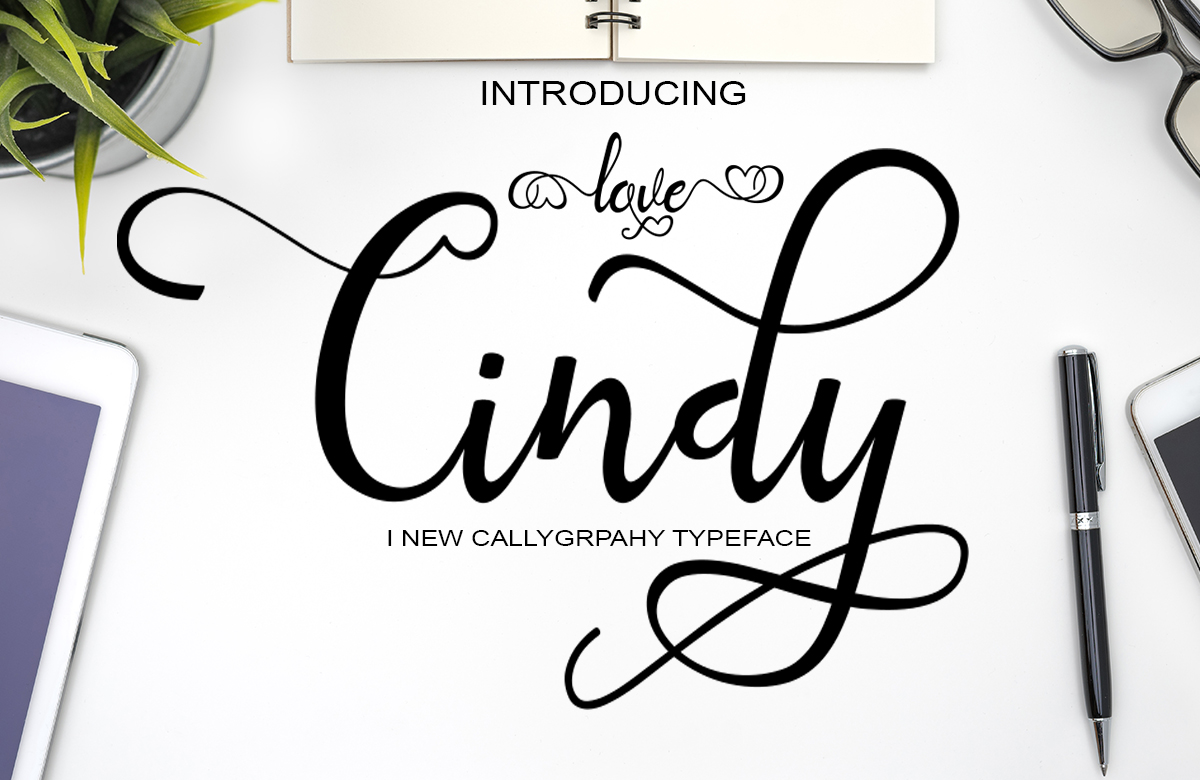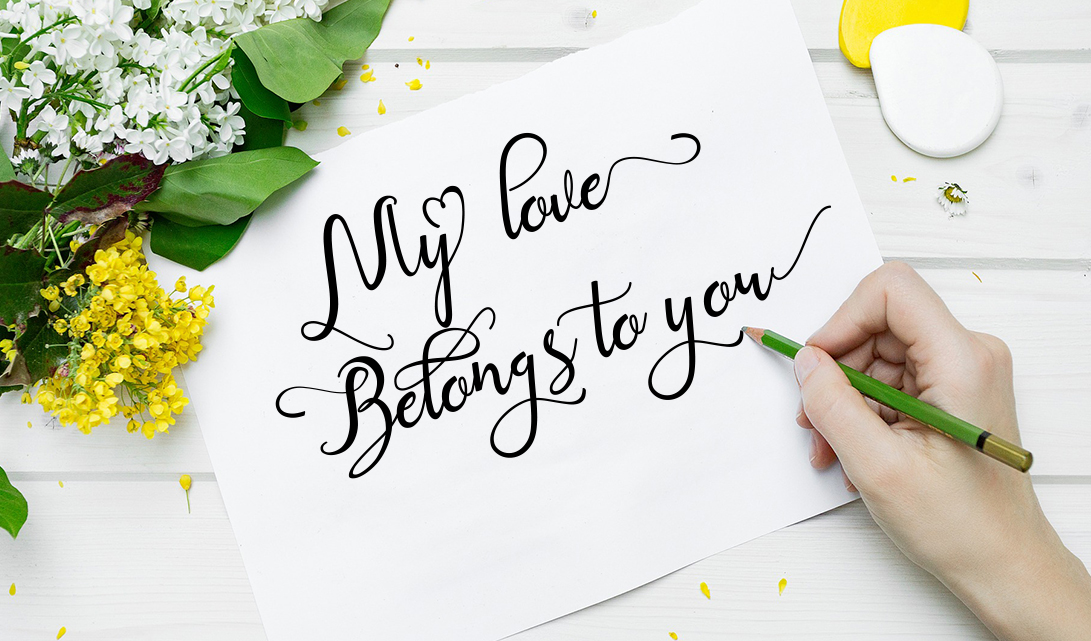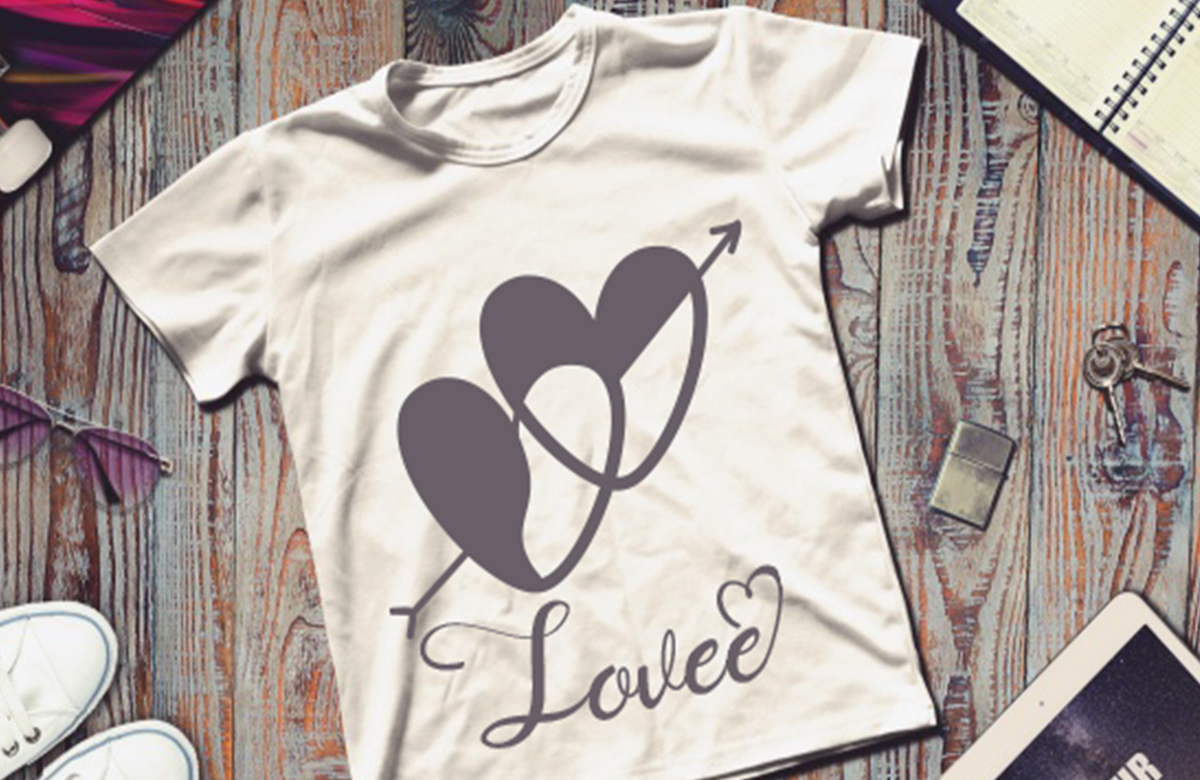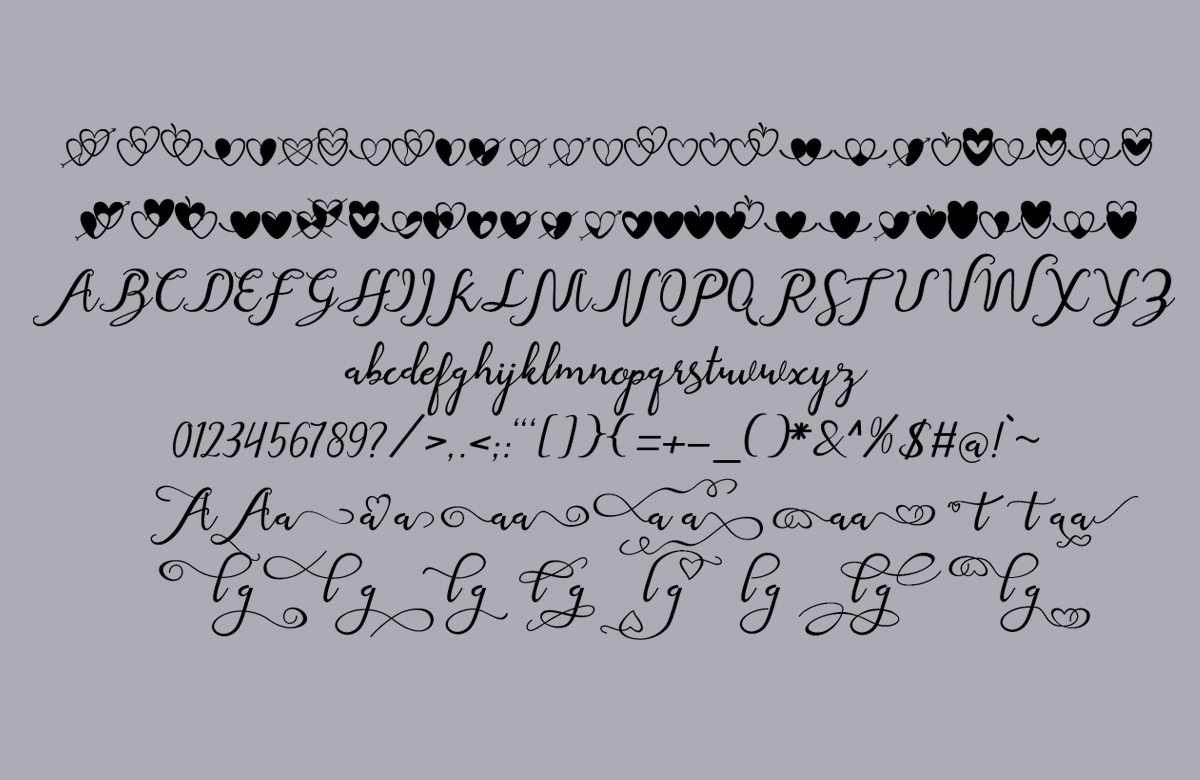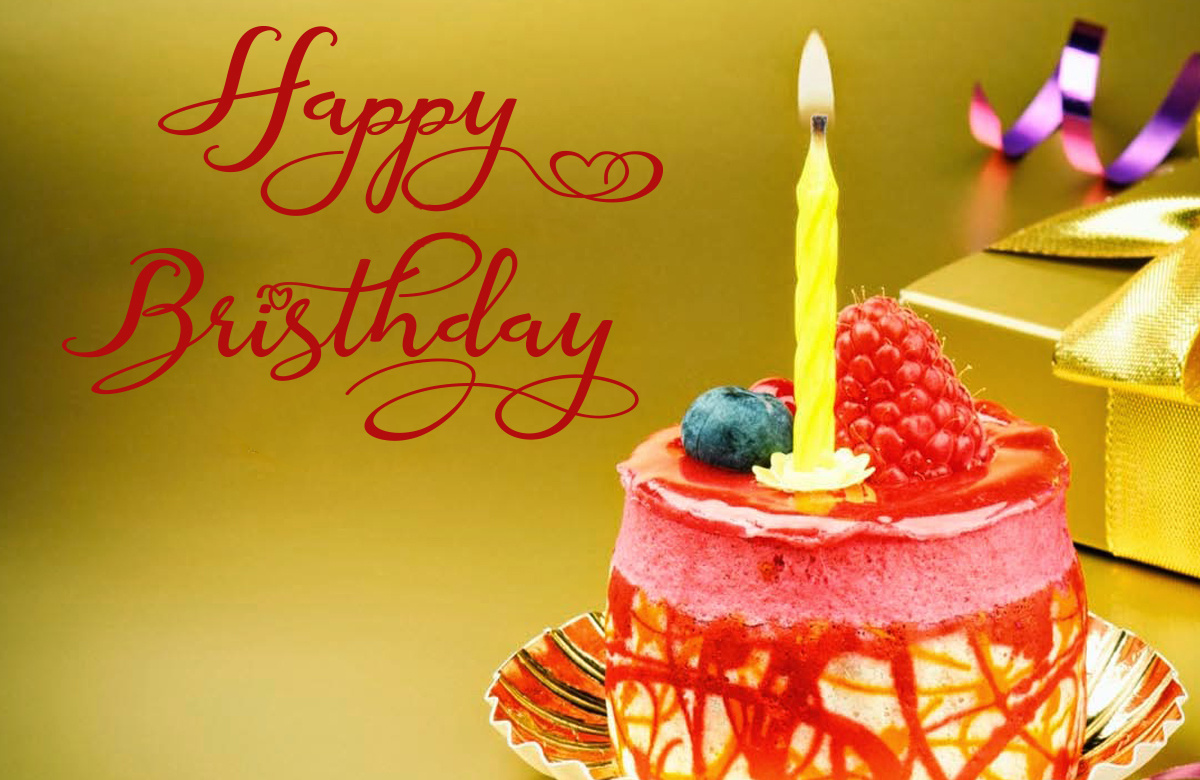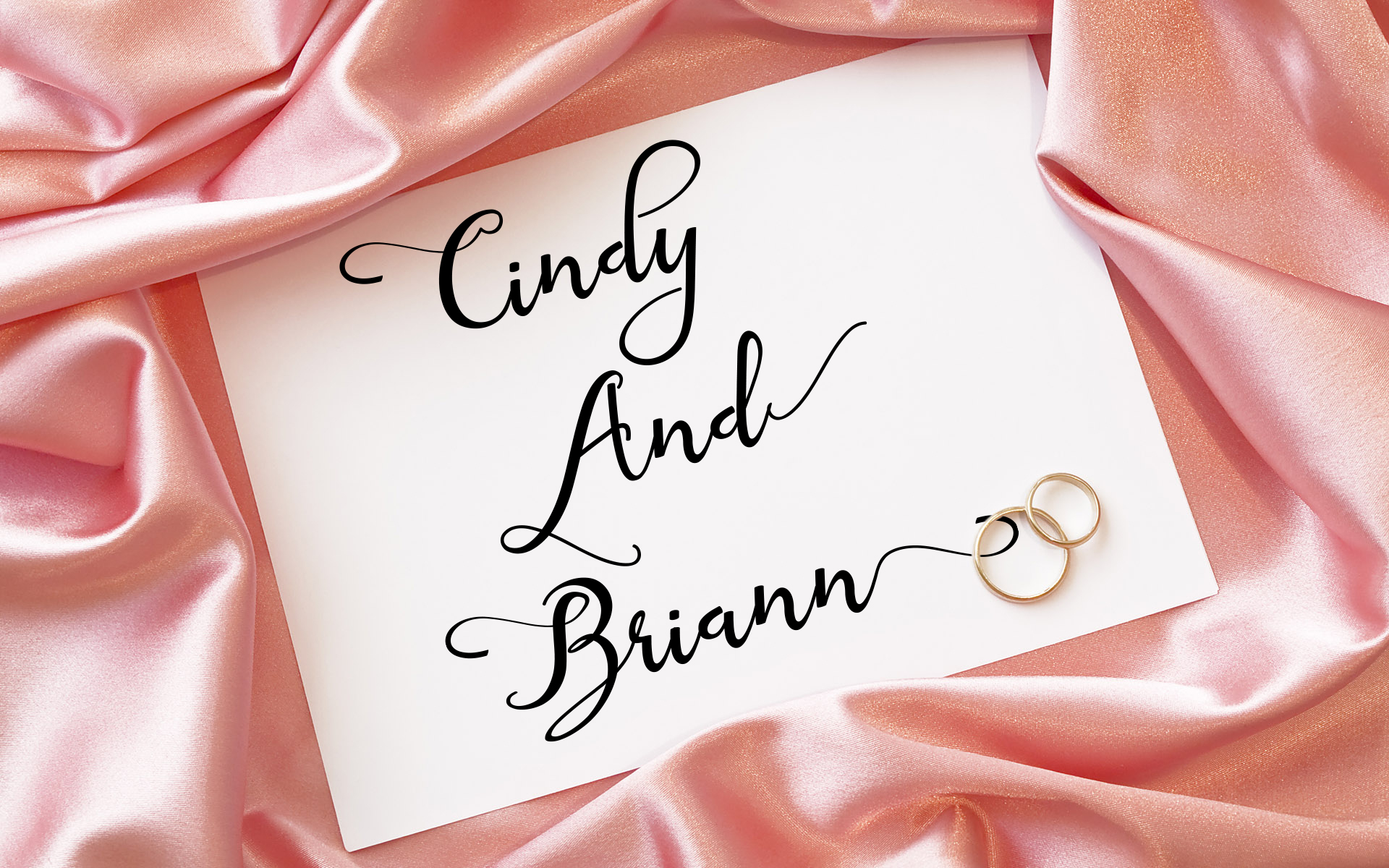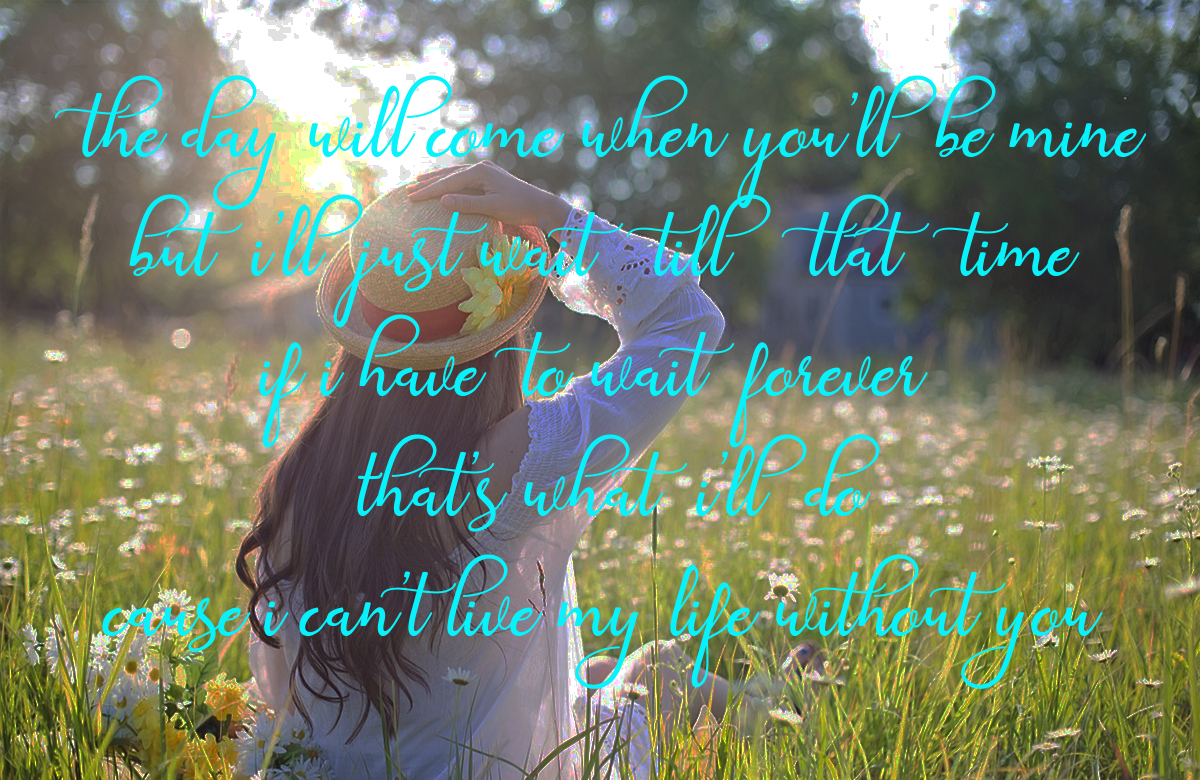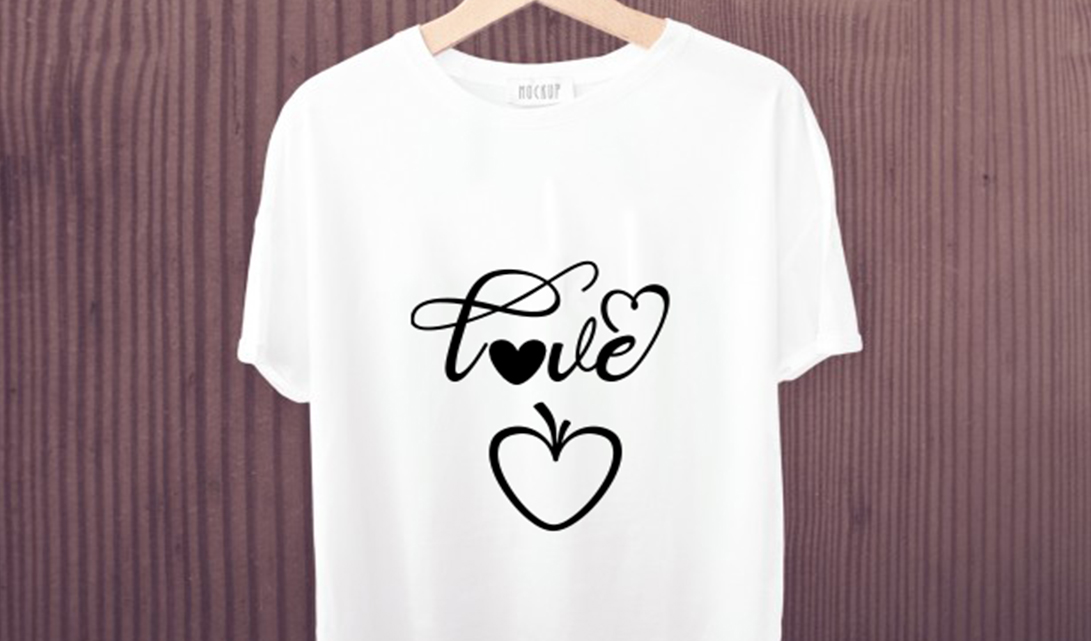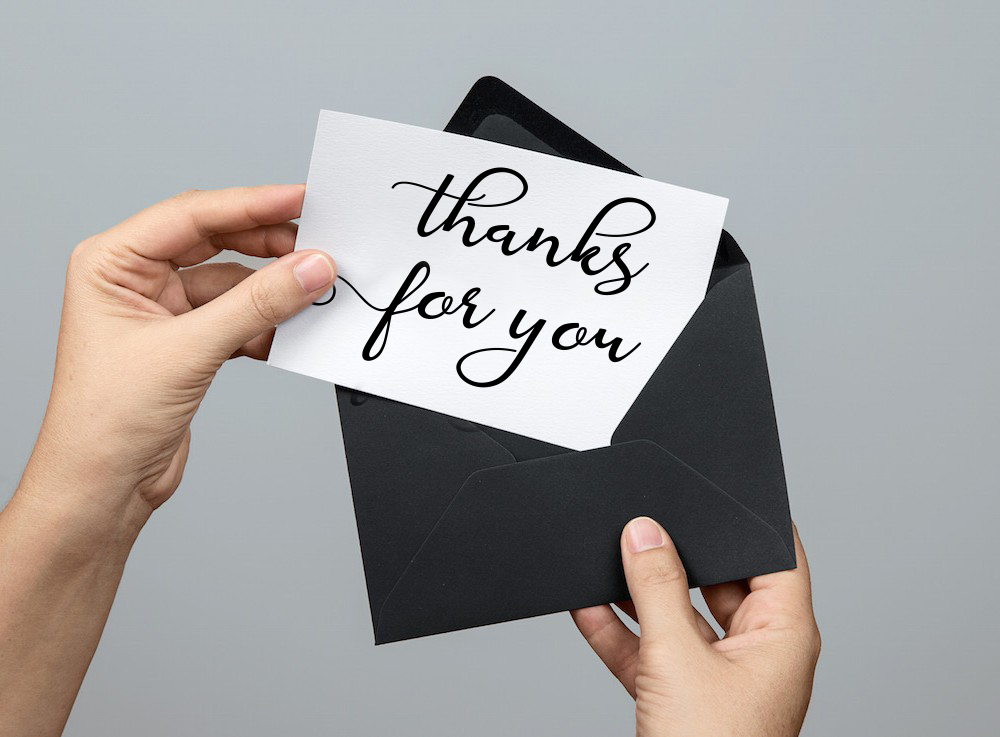
Love Cindy Script Font
About Love Cindy Script Font
Love Cindy is a girly and romantic script font with tons of embellishments and flourishes. Use for special occasions or for projects that necessitate more charm and ornament.